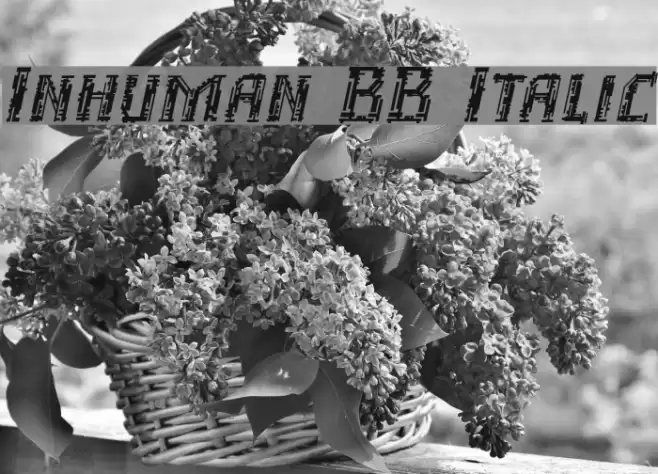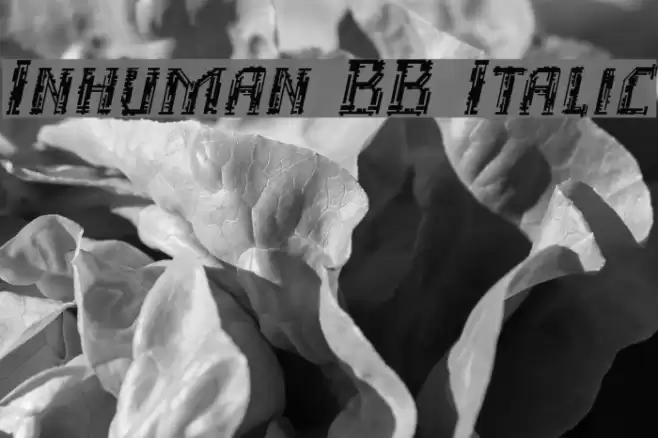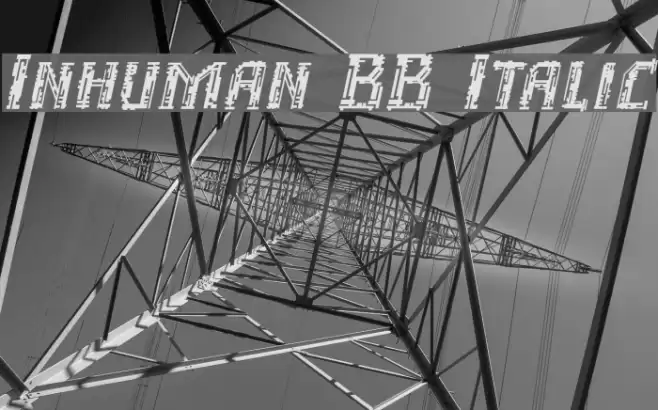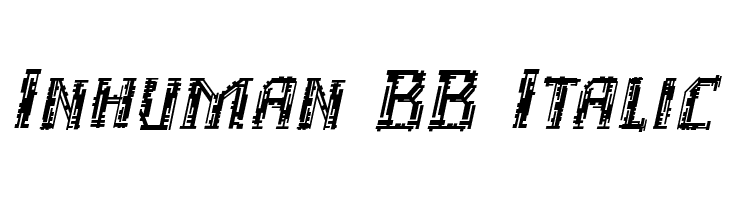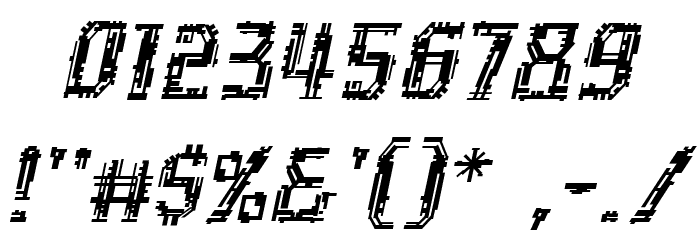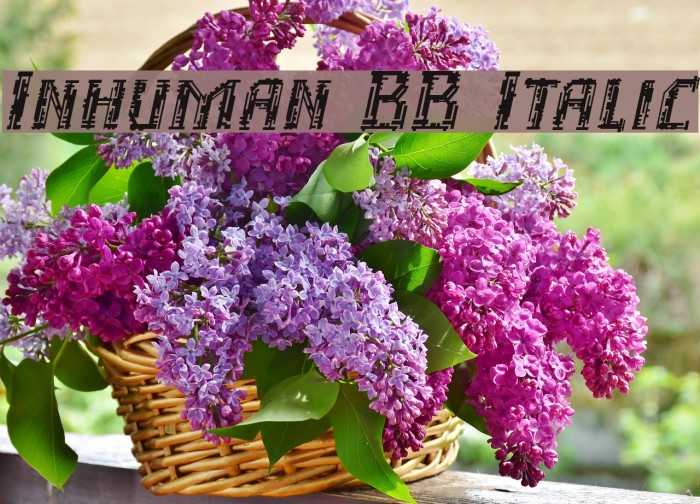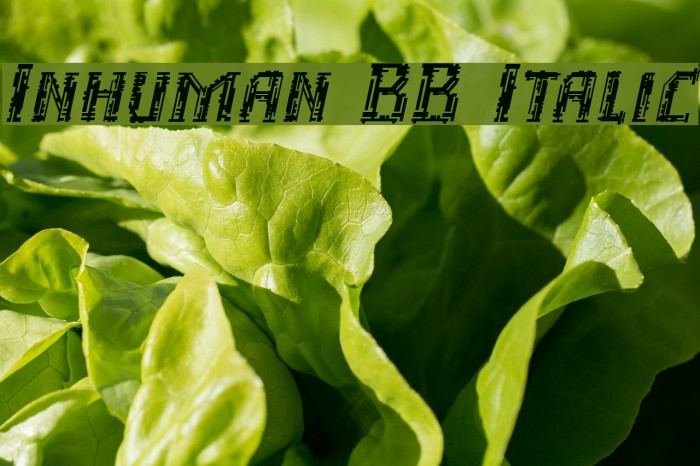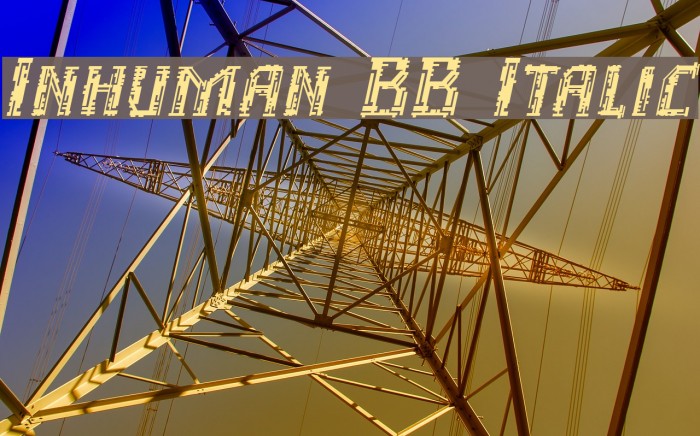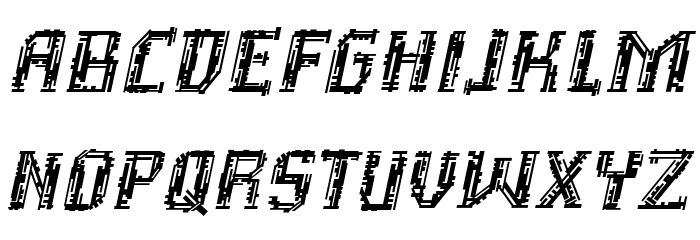
Inhuman BB Italic Font
Inhuman BB Italic Description
This font exhibits a bold, futuristic style with a distinctive glitch effect. The characters are angular and geometric, featuring sharp edges and a fragmented appearance that suggests digital distortion. The uppercase and lowercase letters maintain a consistent design, with each character appearing as if it has been sliced and shifted slightly. Numbers and special characters follow the same aesthetic, ensuring uniformity across the font. The italic slant adds a dynamic feel, enhancing the sense of movement and modernity. This font is ideal for projects that aim to convey a sense of technology, innovation, or digital disruption.
A bold, glitch-style font with an italic slant, perfect for tech-themed designs from Uncategorized fonts.
- Proposed Projects: Ideal for tech-related branding, video game titles, sci-fi movie posters, and digital art projects.